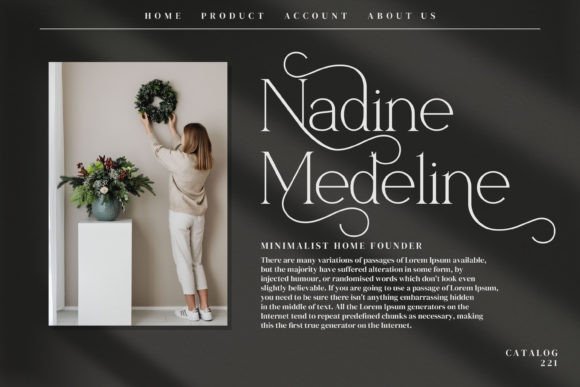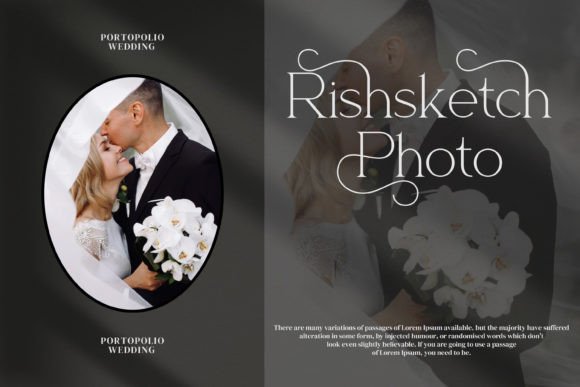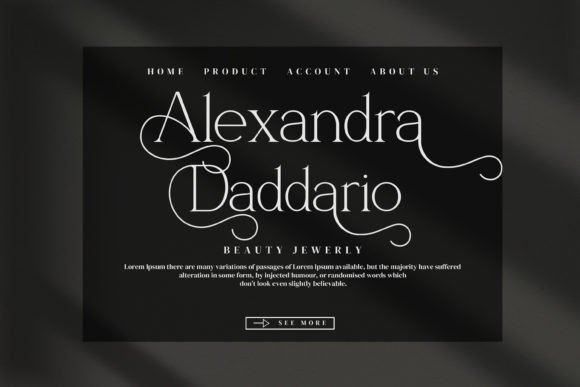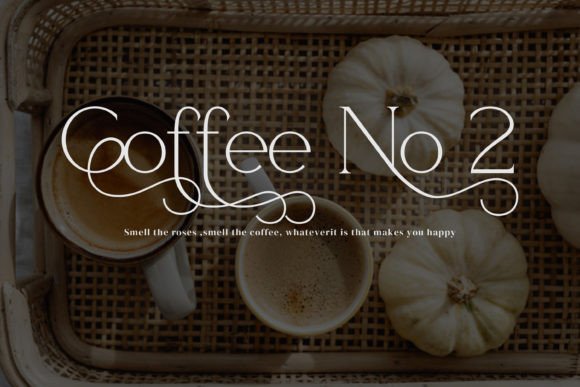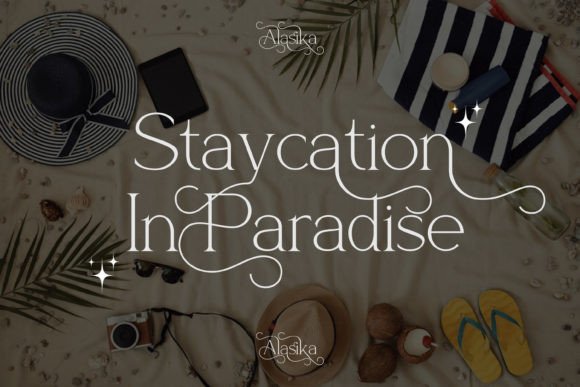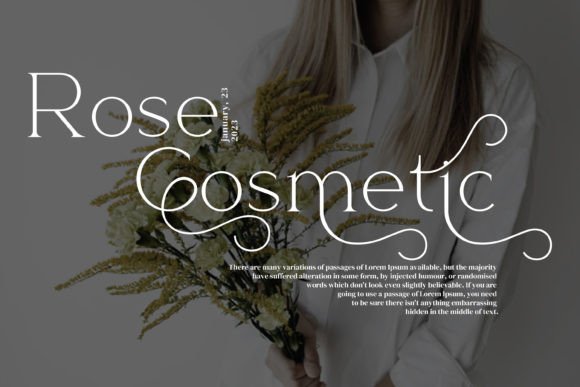
Introducing Alasika Font: Elevate Your Designs with Timeless Elegance
In the world of typography, a well-crafted font can make all the difference in creating a lasting impression. For designers and crafters seeking to infuse their projects with sophistication and charm, Alasika Font is an exceptional choice. This elegant and appealing serif font is meticulously designed to bring a touch of luxury to your branding, high-end designs, and upscale documents.
The Essence of Alasika Font
Alasika Font is more than just a typeface; it’s an experience. Its serif design exudes a sense of tradition and reliability, while its elegant lines and curves add a modern twist. This font is perfect for those who wish to convey a sense of refinement and poise in their work. Whether you’re creating a brand identity, designing a luxury product, or crafting an upscale document, Alasika Font is sure to make a lasting impression.
Key Features of Alasika Font
- Elegant Serif Design: Alasika Font boasts a classic serif design that adds a touch of sophistication to any project.
- PUA Encoded: This font is PUA (Private Use Area) encoded, allowing you to access all glyphs and swashes effortlessly. This feature makes it easy to use and customize the font to suit your needs.
- Timeless Beauty: Alasika Font’s design is timeless, ensuring that your work will remain stylish and relevant for years to come.
- Versatile: This font is perfect for a wide range of applications, including branding, high-end designs, upscale documents, and more.
Why Choose Alasika Font?
With so many fonts available, why choose Alasika Font? Here are a few compelling reasons:
- Unique and Distinctive: Alasika Font’s elegant design sets it apart from more common typefaces, ensuring that your work will stand out from the crowd.
- High-End Aesthetic: This font is perfect for creating luxury brands, high-end products, and upscale documents that require a sophisticated look.
- Easy to Use: Alasika Font is PUA encoded, making it easy to access all glyphs and swashes. This feature saves you time and effort, allowing you to focus on your design.
- Timeless Appeal: The font’s classic design ensures that your work will remain stylish and relevant for years to come, avoiding the need for frequent redesigns.
Applications of Alasika Font
Alasika Font’s versatility makes it suitable for a wide range of applications, including:
- Branding: Create a lasting impression with a luxury brand identity that exudes sophistication and elegance.
- High-End Designs: Use Alasika Font to create stunning designs for luxury products, such as jewelry, fashion, and high-end electronics.
- Upscale Documents: Add a touch of elegance to your upscale documents, such as brochures, catalogs, and magazines.
- Packaging: Create eye-catching packaging that stands out on store shelves with Alasika Font’s elegant design.
In conclusion, Alasika Font is an exceptional choice for designers and crafters seeking to infuse their projects with sophistication and charm. Its elegant serif design, PUA encoding, and timeless beauty make it perfect for branding, high-end designs, and upscale documents. With its versatility and ease of use, Alasika Font is sure to become a staple in your design arsenal.
Experience the elegance and sophistication of Alasika Font in your designs. Elevate your work to new heights with this stunning serif font.